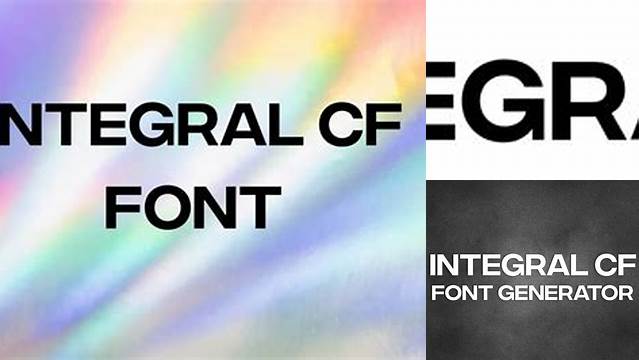
Hey guys! Looking for a fantastic font that's both stylish and versatile? You're in the right place! Today, we're diving deep into the world of the Integral CF font and, even better, how you can get an integral cf font free download. This font is a real gem, perfect for a ton of different projects. Whether you're a graphic designer, a student, or just someone who loves to play around with fonts, the Integral CF font is definitely worth checking out. It's got a clean, modern look that's super readable and can add a touch of class to anything you're working on. We'll cover everything you need to know, from what makes the Integral CF font so special to how to snag that integral cf font free download safely and easily. So, buckle up, and let's get started on this font adventure!
Integral CF Font: What Makes It Special?
So, what's the big deal about the Integral CF font, right? Well, it's got a lot going for it! First off, it's designed with a modern aesthetic that's both clean and eye-catching. This means it looks great in a variety of contexts, from websites and print materials to presentations and social media graphics. The font's designers clearly put a lot of thought into making it both readable and visually appealing. The integral cf font comes in a range of weights and styles, which is a huge plus. You've got your regular, bold, italic, and sometimes even more variations, giving you plenty of options to create different looks and feels. This flexibility is super important because it allows you to tailor the font to your specific needs. Need something subtle? Use the regular weight. Want to make a statement? Go for the bold! The versatility of the Integral CF font is one of its key strengths. It's not just about the font itself, but also about how it can be used. Its design makes it suitable for everything from headlines and titles to body text. This means you can use it across your entire project, creating a cohesive and professional look. The font's balanced design is also key. It avoids being overly stylized or distracting, making it perfect for long-form content where readability is crucial. Ultimately, the Integral CF font is a well-rounded choice that combines style, readability, and versatility, making it a fantastic option for anyone looking to add a touch of elegance to their work. This is why finding an integral cf font free download is so appealing.
Key Features and Design Aspects of the Integral CF Font
Alright, let's dig a little deeper into what makes the Integral CF font tick. We'll get into the nitty-gritty of its design and features, so you can really appreciate its nuances. The font is characterized by its geometric construction. This means the letterforms are built using basic geometric shapes like circles and straight lines. This gives the font a clean, modern feel. This design approach also contributes to its excellent readability, even at smaller sizes. The integral cf font often features a slightly condensed appearance, which means the letters are a bit narrower than a standard font. This is a great feature for saving space, especially in headlines or where you need to fit a lot of text into a limited area. The x-height of a font refers to the height of the lowercase 'x.' The Integral CF font typically has a generous x-height, which enhances readability. This makes the font easy to read, even if you’re not using it in large sizes. The font often includes a wide range of characters, including a full set of Latin characters, numbers, and punctuation marks. This means you can use the font for multiple languages and various types of content. It’s also common to find OpenType features in the font, which give you extra design flexibility. These features include ligatures (special characters that combine two letters), stylistic alternates, and other variations. These features allow you to customize the appearance of the font to perfectly fit your needs. The overall design philosophy behind the Integral CF font is about balance and simplicity. It's designed to be versatile and easy to use while still looking stylish and contemporary. Considering these features, it’s no wonder people are searching for an integral cf font free download.
Why Choose the Integral CF Font for Your Projects?
Alright, let’s get down to why you might want to choose the Integral CF font for your projects. It's not just about having a nice-looking font; it’s about making your work stand out and communicate effectively. One of the biggest benefits is its versatility. The integral cf font works well in various applications, from website design to print materials. Its clean lines and modern aesthetic make it a great fit for almost any project. Readability is another massive plus. No matter how stylish a font is, it needs to be easy to read, especially for body text. The Integral CF font excels in this area, with its clear letterforms and good spacing. This ensures your audience can easily consume your content. Then there’s the professional appearance. Using the Integral CF font can elevate your projects, giving them a polished and professional look. This is important whether you’re creating a resume, a presentation, or a marketing brochure. The wide range of weights and styles lets you create a cohesive design. This includes regular, bold, italic, and often other variations. This consistency is key to creating a brand identity. Moreover, it often comes with excellent licensing options. Some versions offer free downloads for personal use, making it an accessible choice for those on a budget. Finally, there’s the impact it can make on your brand. The integral cf font can help establish a modern and trustworthy image, leaving a positive impression on your audience. Using a well-designed font like this shows that you care about the details, which can significantly boost your brand's credibility. Considering all these benefits, it's easy to see why the quest for an integral cf font free download is so popular.
Project Ideas Where the Integral CF Font Shines
Okay, let's get creative! Where exactly can you use the Integral CF font to make your projects pop? This font is super versatile, so you've got tons of options. Let’s start with website design. The integral cf font is perfect for headings, subheadings, and body text on websites. Its clean, modern look keeps things readable and professional. Next up is print materials. Think brochures, flyers, and posters. The font’s clarity and style make it a great choice for grabbing attention and conveying your message effectively. Social media graphics are another great area. The font’s readability makes it ideal for creating eye-catching posts and stories that stand out in a crowded feed. When it comes to presentations, the Integral CF font can help you create a polished and engaging slideshow. Its modern design keeps things clean, which is perfect for keeping your audience focused. Logos and branding benefit from its versatility. This font can be used in logos and branding materials to give your brand a modern and reliable image. Think business cards, letterheads, and more! For personal projects, like resumes or personal websites, the Integral CF font gives you a professional edge. It can show potential employers or clients that you pay attention to detail and care about your presentation. Even in educational materials, like worksheets or presentations, the font's clarity helps students. The integral cf font ensures that text is easy to read and understand. The best part? You don’t have to break the bank, which leads many to search for an integral cf font free download.